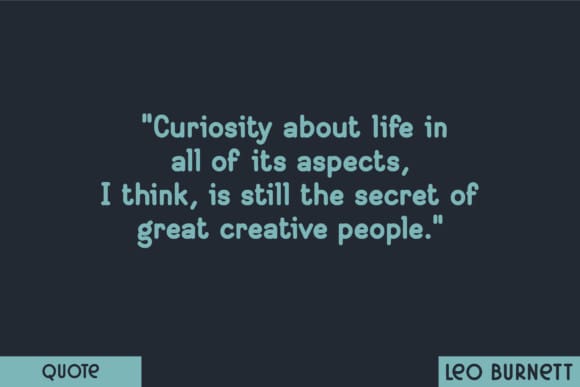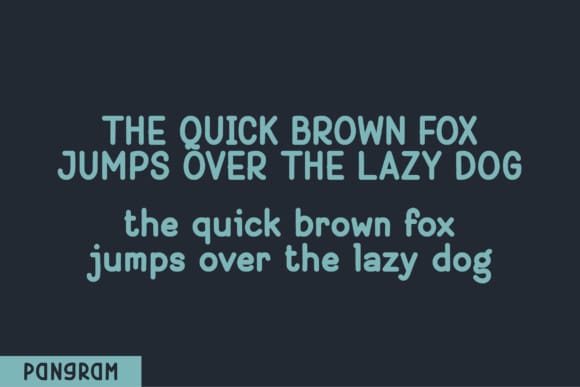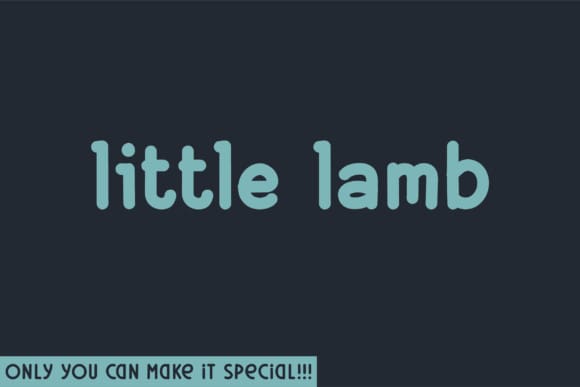
Little Lamb Font
Little Lamb Font is a bold and unique sans serif font, perfect for quotes, notes, tees, logos, social media and any design that requires a classic touch.